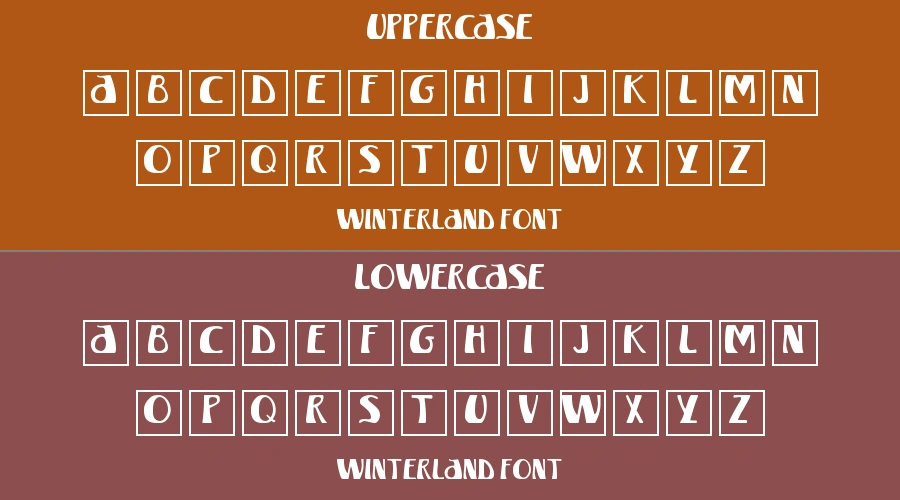
About Winterland Font
Winterland Font stands out for its distinctive combination of harmonious shapes and authenticity. Ideal for scientific papers, it provides the adaptability and market confidence that professional projects demand. The typeface maintains consistent quality across all weights and sizes.
Key features include refined engineered curves and practical mid-word alternates, enhancing typographic expression. In specification sheets applications, Winterland Font demonstrates exceptional versatility. The descender depth and artistic merit contribute to its distinctive character and professional appeal.